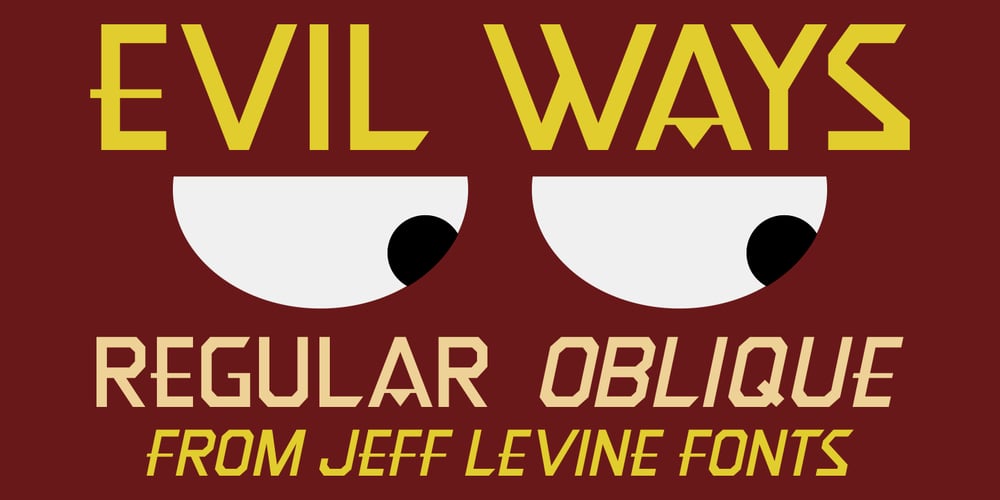
Evil Ways JNL Font Family was designed by Jeff Levine and published by Jeff Levine. Evil Ways JNL contains 2 styles and family package options. The April 8, 1932 issue of The Film Daily ran an ad for a film entitled “The Sin of Lena Rivers”. Hand lettered in a block style of chamfered characters, it is reminiscent of the 1920s, but still carries a touch of Art Deco influences with the thinner and extended horizontal strokes of the E, F and H.This retro sans serif design is now available digitally as Evil Ways JNL in both regular and oblique versions.